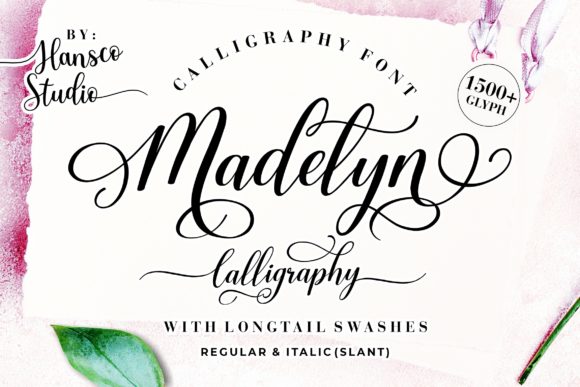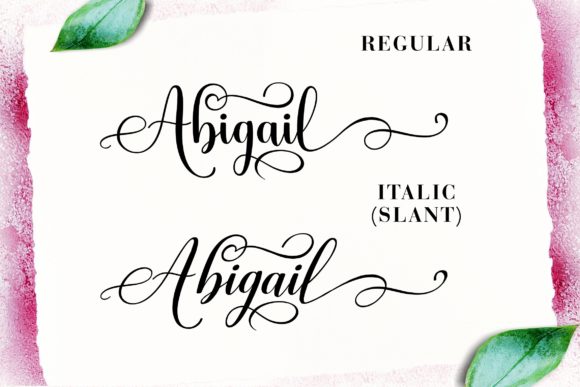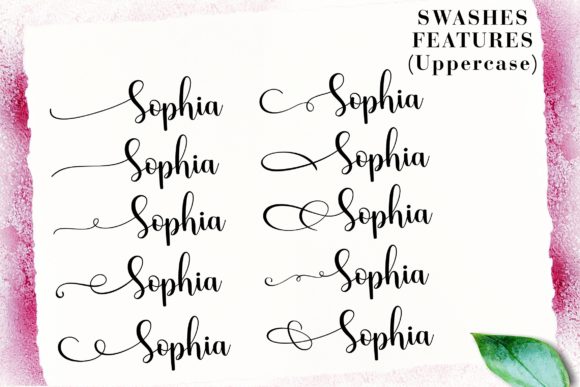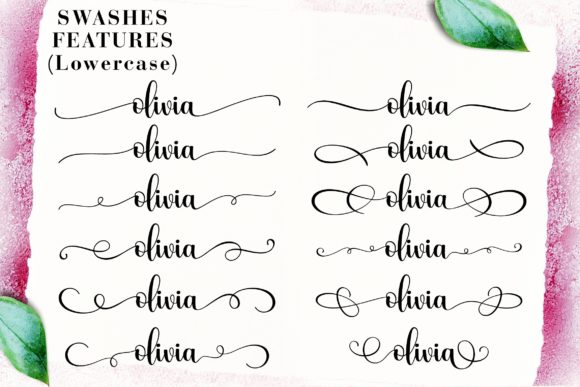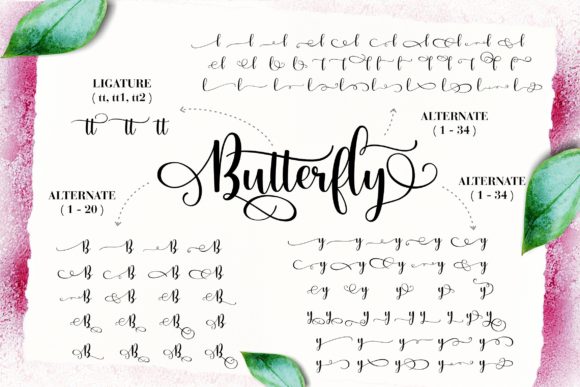
About Madelyn Calligraphy Font
Madelyn Calligraphy is a clean and modern script font. Whether you’re looking for fonts for Instagram or calligraphy scripts for DIY projects, this font will turn any creative idea into a true piece of art! This font is PUA encoded which means you can access all glyphs and swashes with ease!